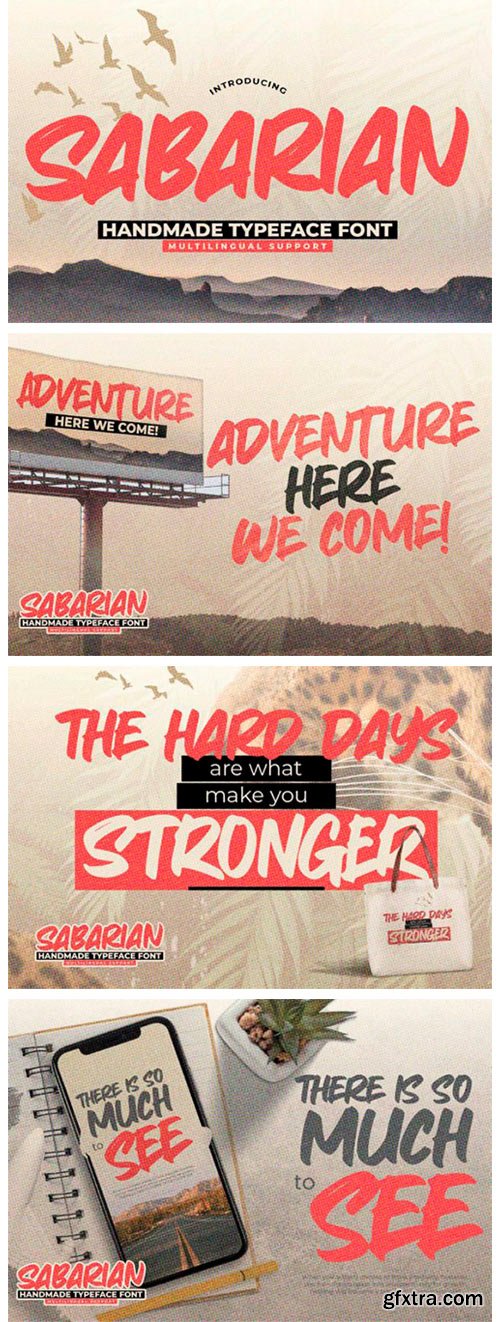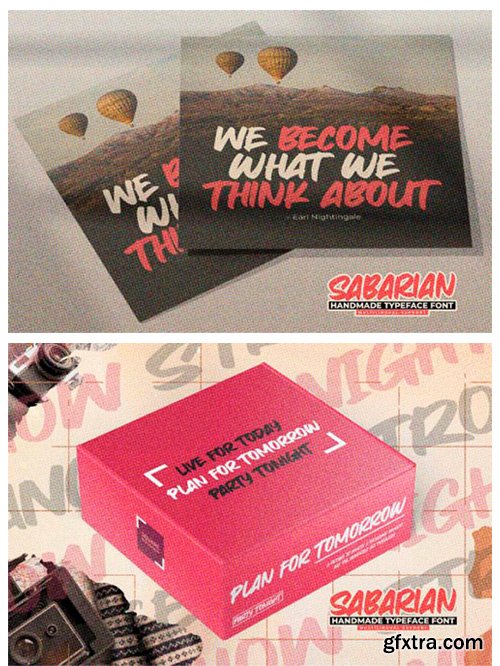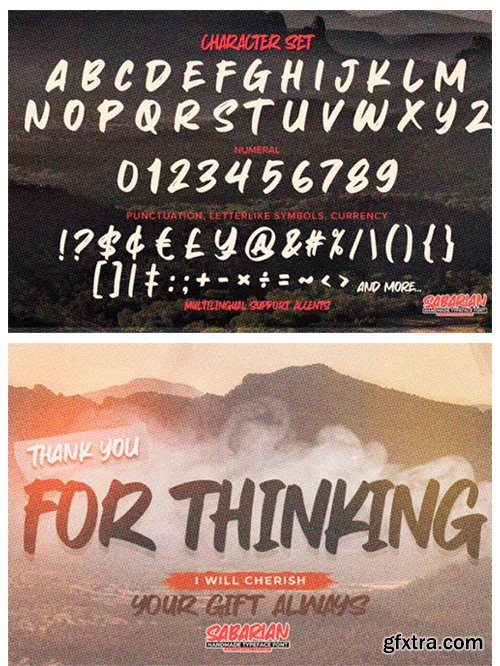
Sabarian Font
Sabarian is a cool, paint brushed and graffiti styled display font. This font is suitable for designs such as t-shirts, sportswear, logos, advertisements, clothing, and more.